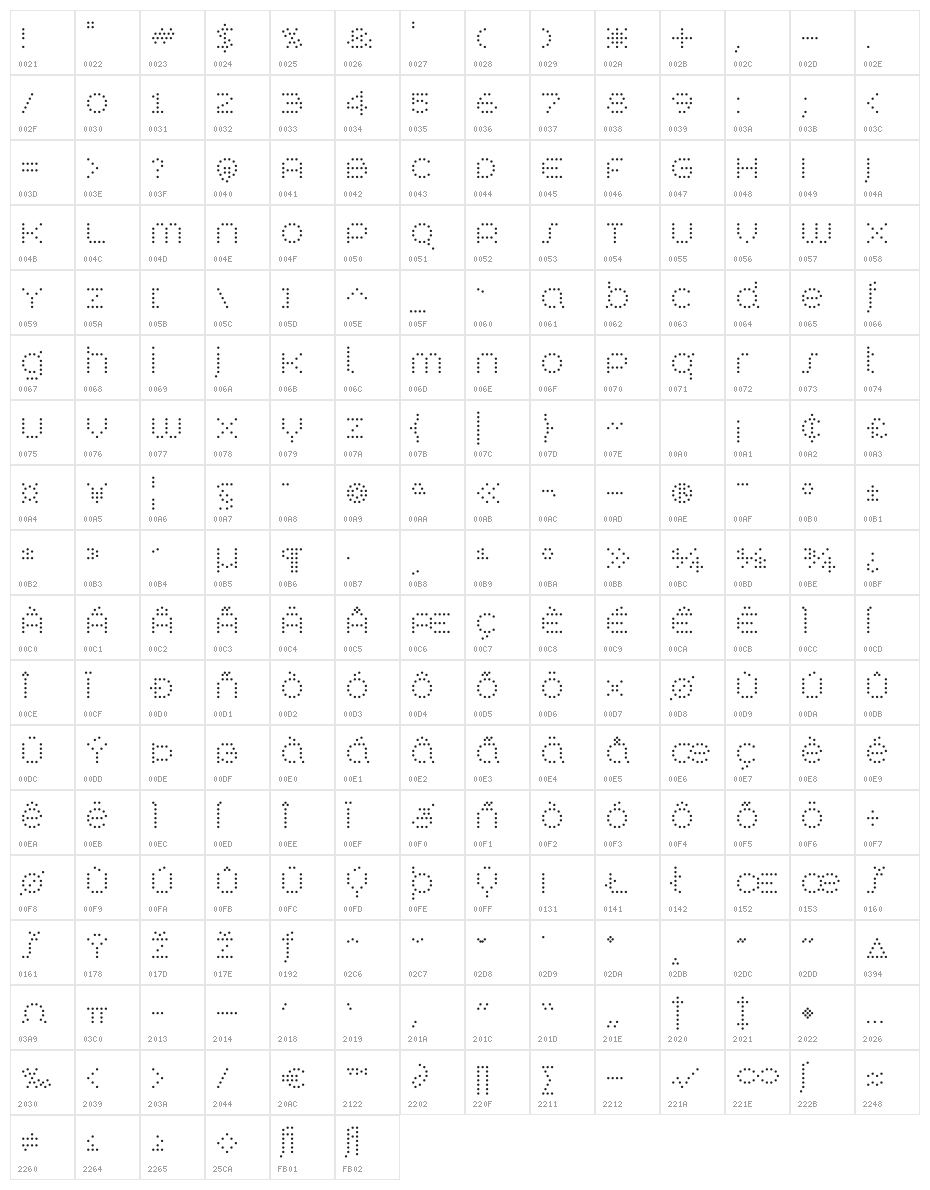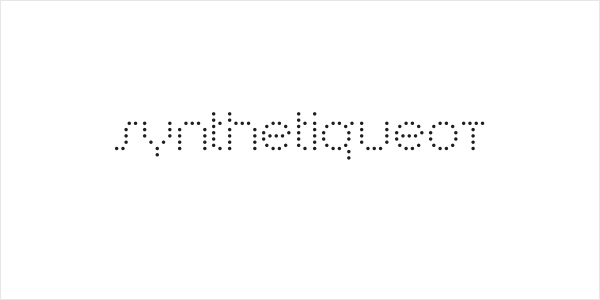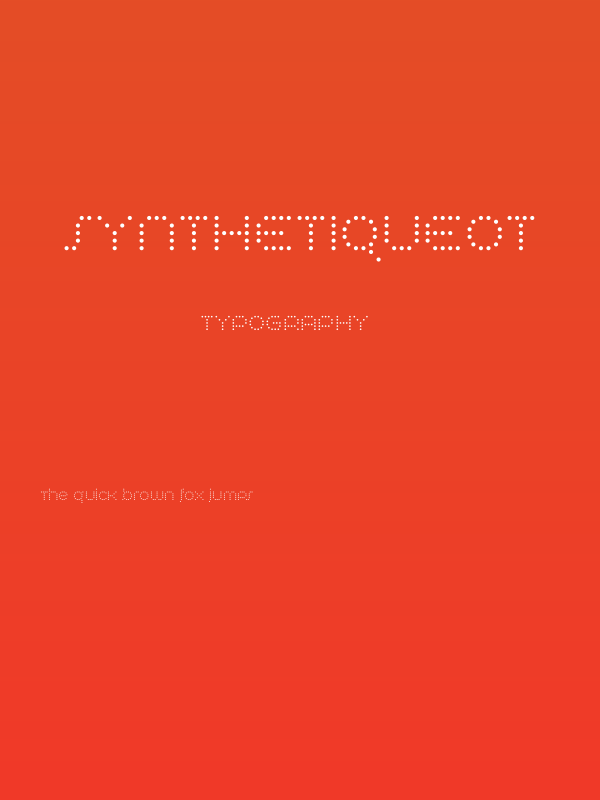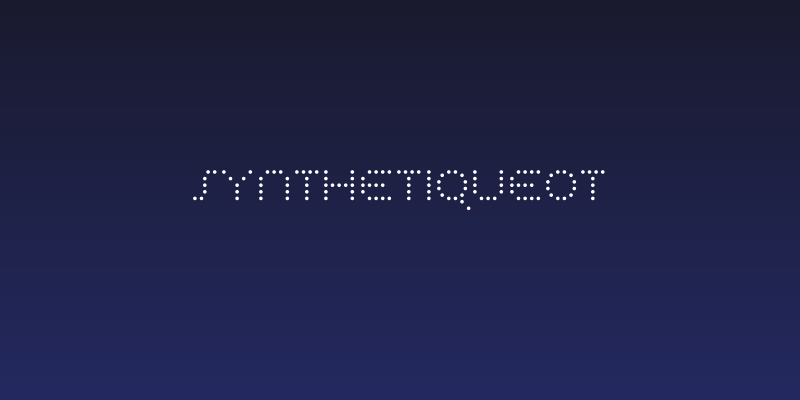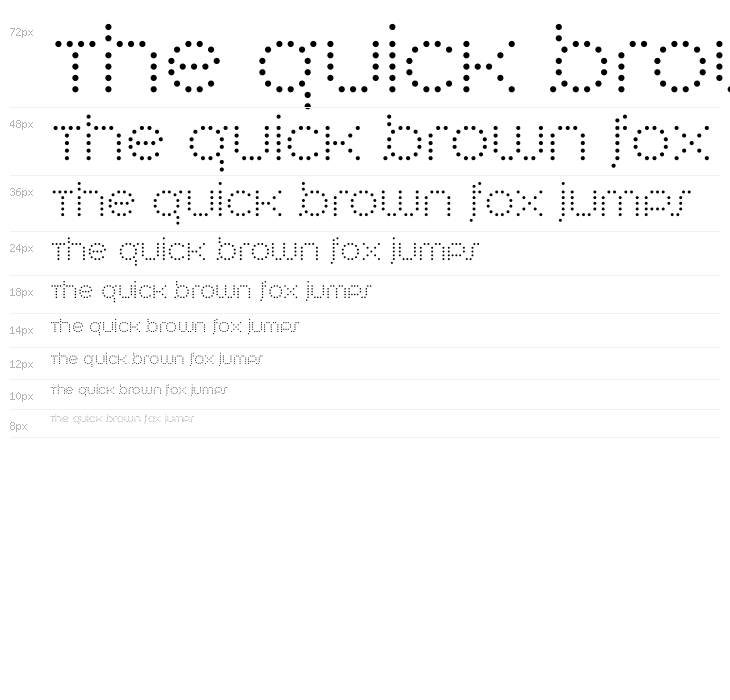
SynthetiqueOT Font
SynthetiqueOT Description
This font features a unique dotted design where each character is constructed from a series of evenly spaced dots, creating a modern and digital aesthetic. The uppercase and lowercase letters maintain a consistent style, with rounded dots forming the outlines of each character. Numbers and special characters follow the same pattern, ensuring uniformity across the entire set. The font's geometric nature gives it a futuristic and technological feel, making it suitable for projects that require a contemporary and innovative look. Its distinct appearance makes it stand out, while the spacing between the dots ensures readability.